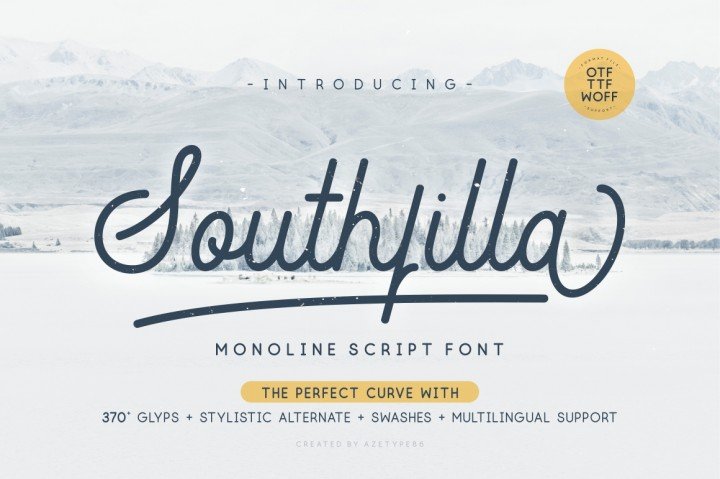
Southfilla Script Font
Southfilla – a new fresh handmade script font, you will enjoy using this font for your design project. It is was designed by AZetype86 . Southfilla is made with love and consistency which in the end looks elegant, simple, readable with The Perfect Curves, catchy, easy to used. Southfilla Monoline Script Font is the great choice for Vintage Stationary, Food and Drink Poster, Logotype, Wedding, Neon Style, Watermark, Quotes, and your other design projects.